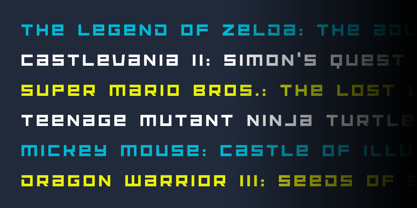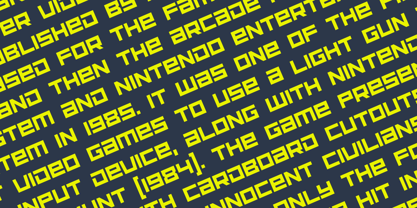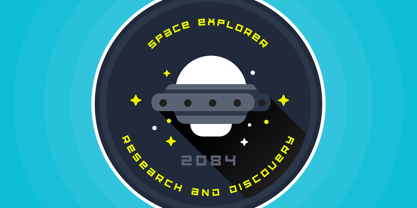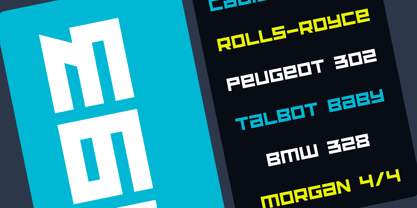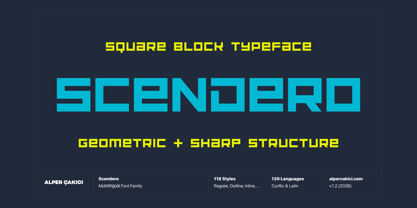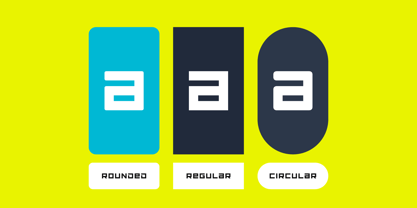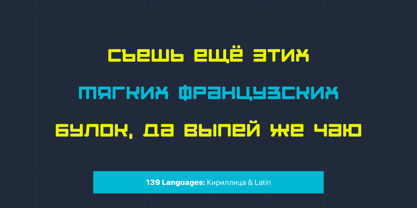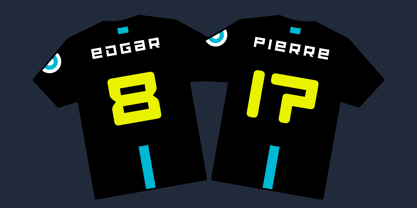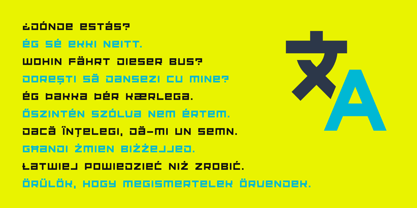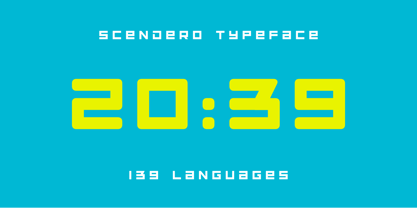
Scendero
by AlperCakici
The Scendero Font Family was designed by Alper Çakıcı and published by AlperCakici. Scendero contains 118 styles and family package options. More about this family
Scendero is a bold, square block typeface built for impact and versatility. Designed with strong geometric structure and sharp presence, it delivers a modern industrial feel while maintaining excellent readability. Supporting both Latin and Cyrillic scripts, Scendero is ideal for global design projects—from branding and editorial layouts to posters, packaging, and digital interfaces. With an extensive family of 118 styles, Scendero offers remarkable flexibility. From clean Regular and Italic cuts to expressive textures like Brush, Chalk, Grainy, and Gritty, the typeface adapts effortlessly to different moods and visual tones. Rounded and Circular variants soften the rigid structure, while Outline, Inline, and Rimmed styles add depth and dimension. Whether you need a polished corporate look or a raw, handcrafted aesthetic, Scendero provides the tools to shape your message with confidence and clarity. Perfect for headlines, logos, signage, and creative typography, Scendero stands out with strength, character, and adaptability.